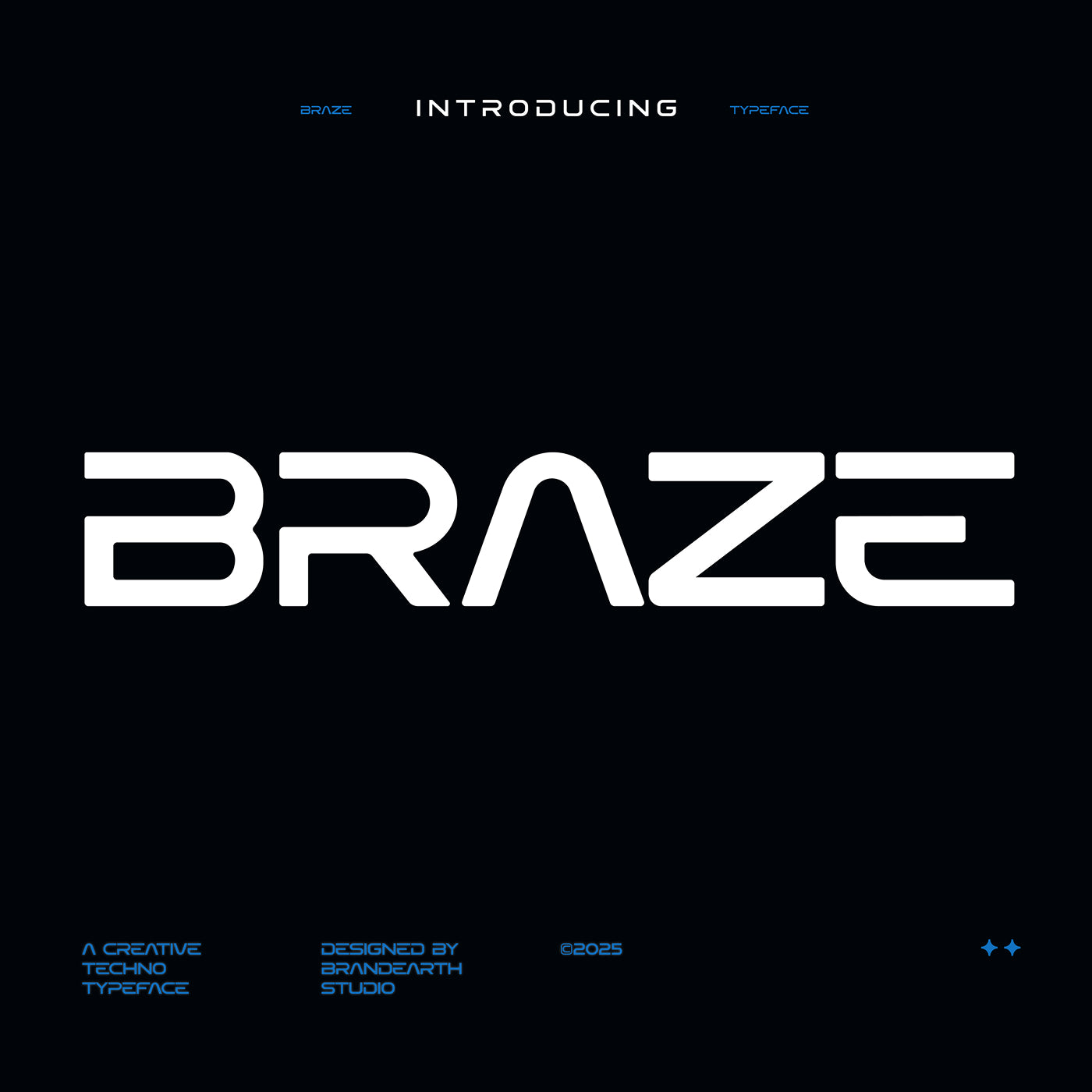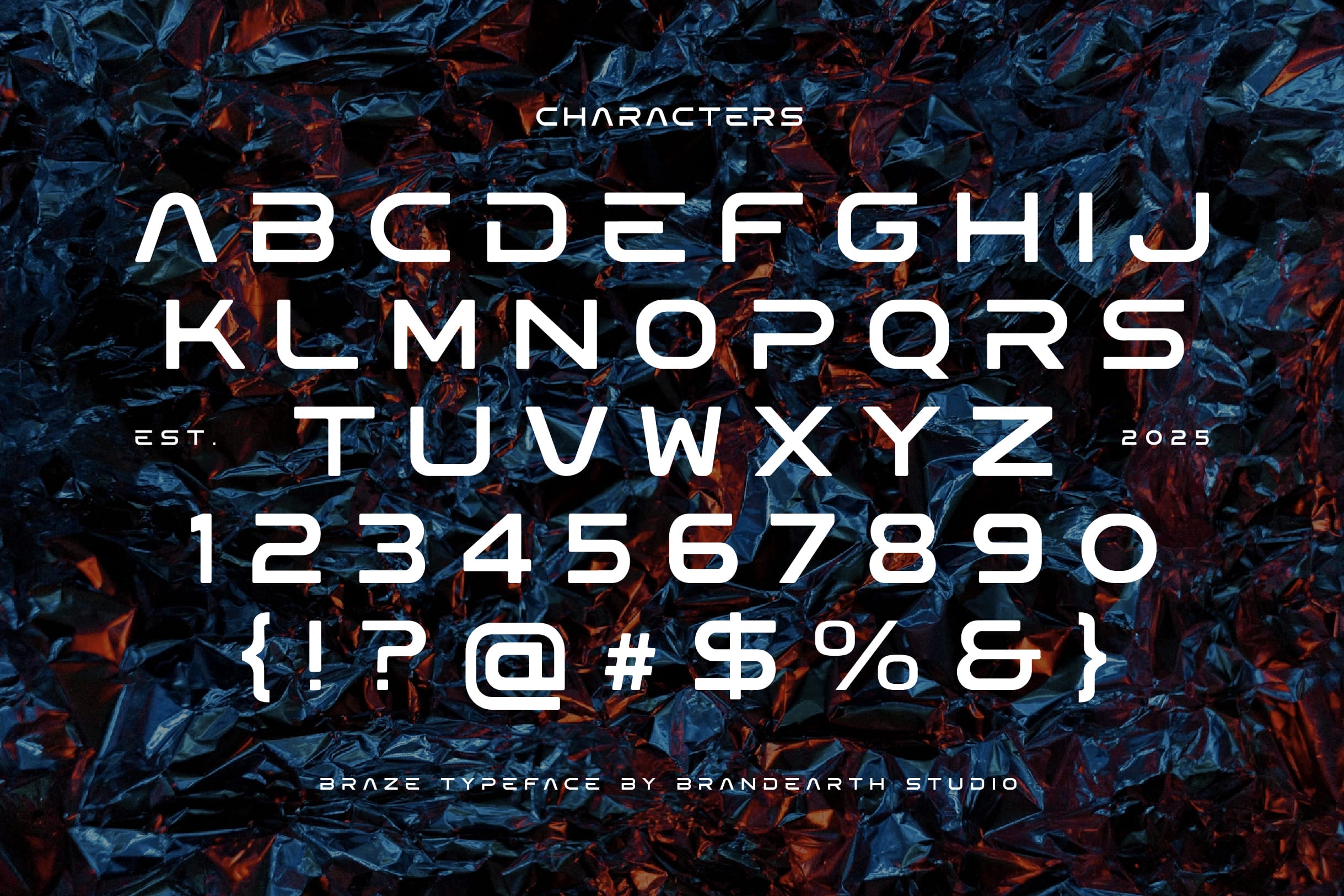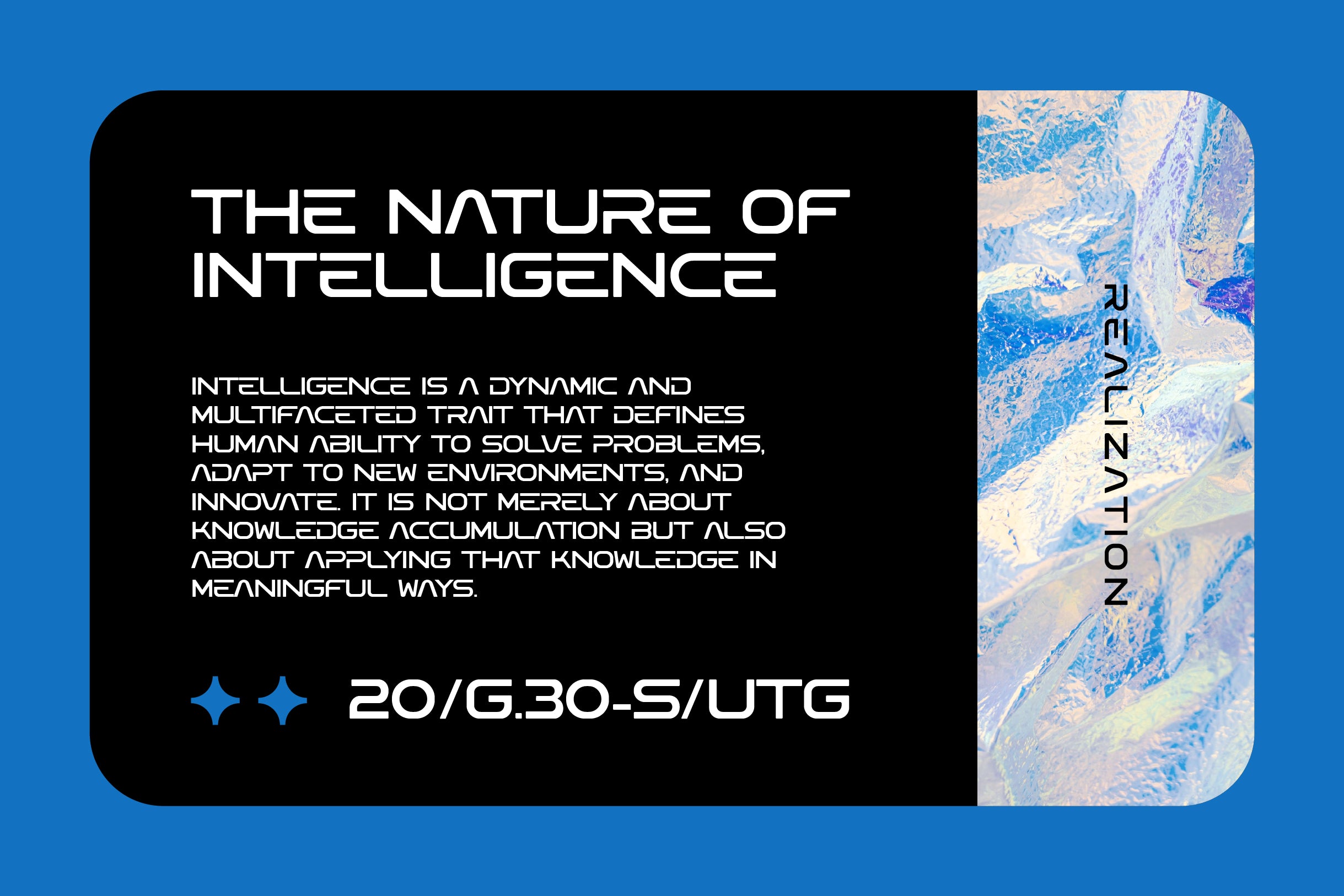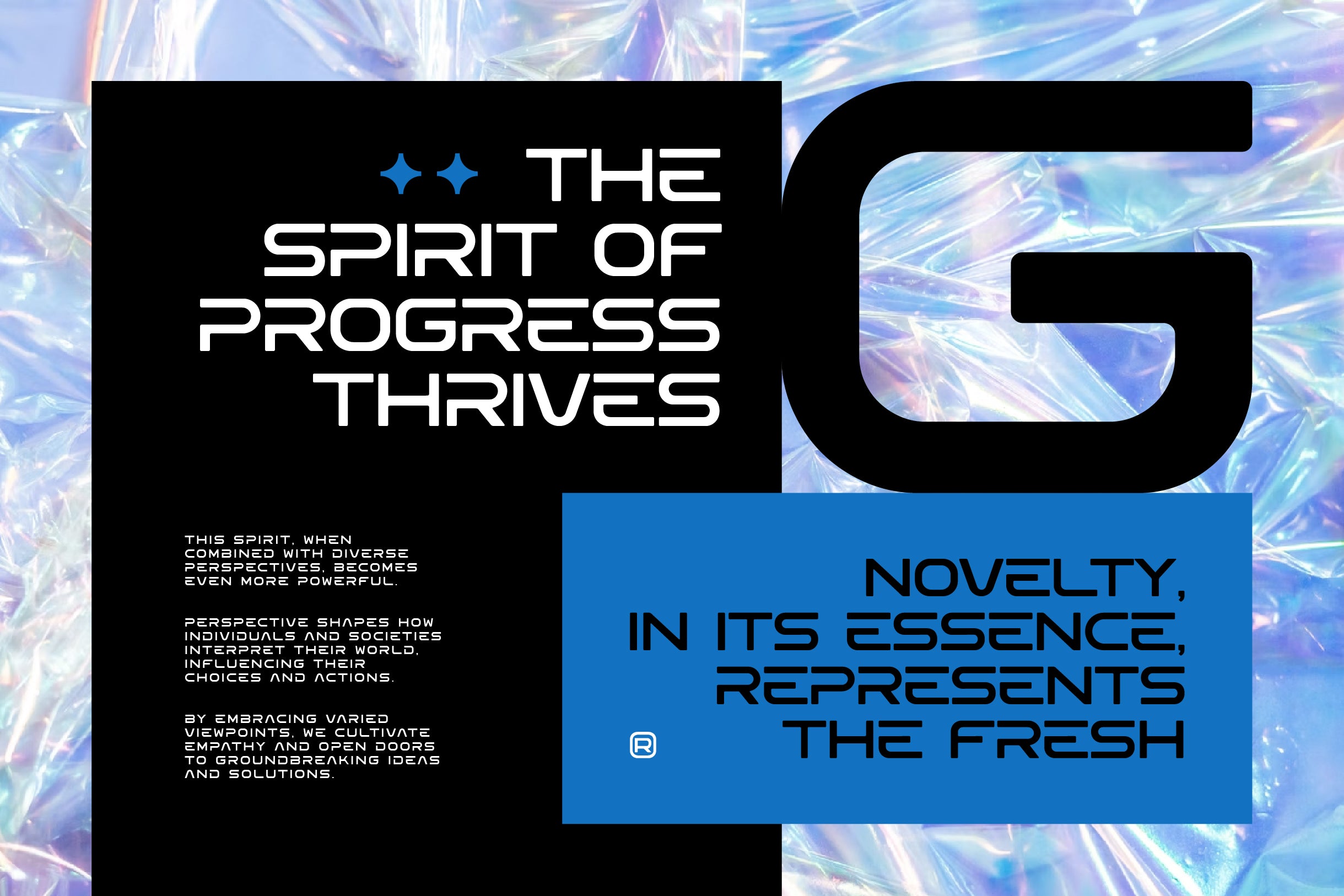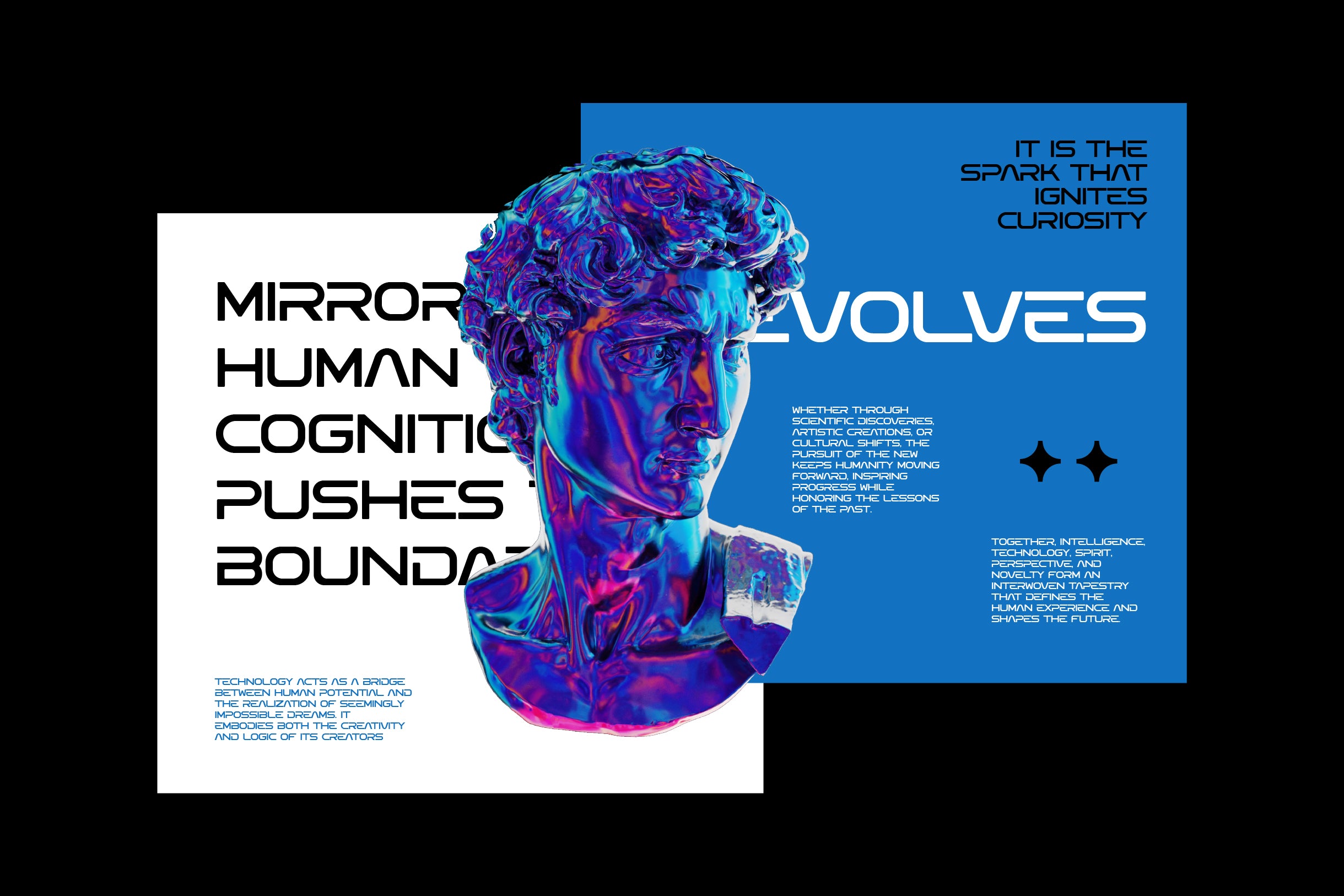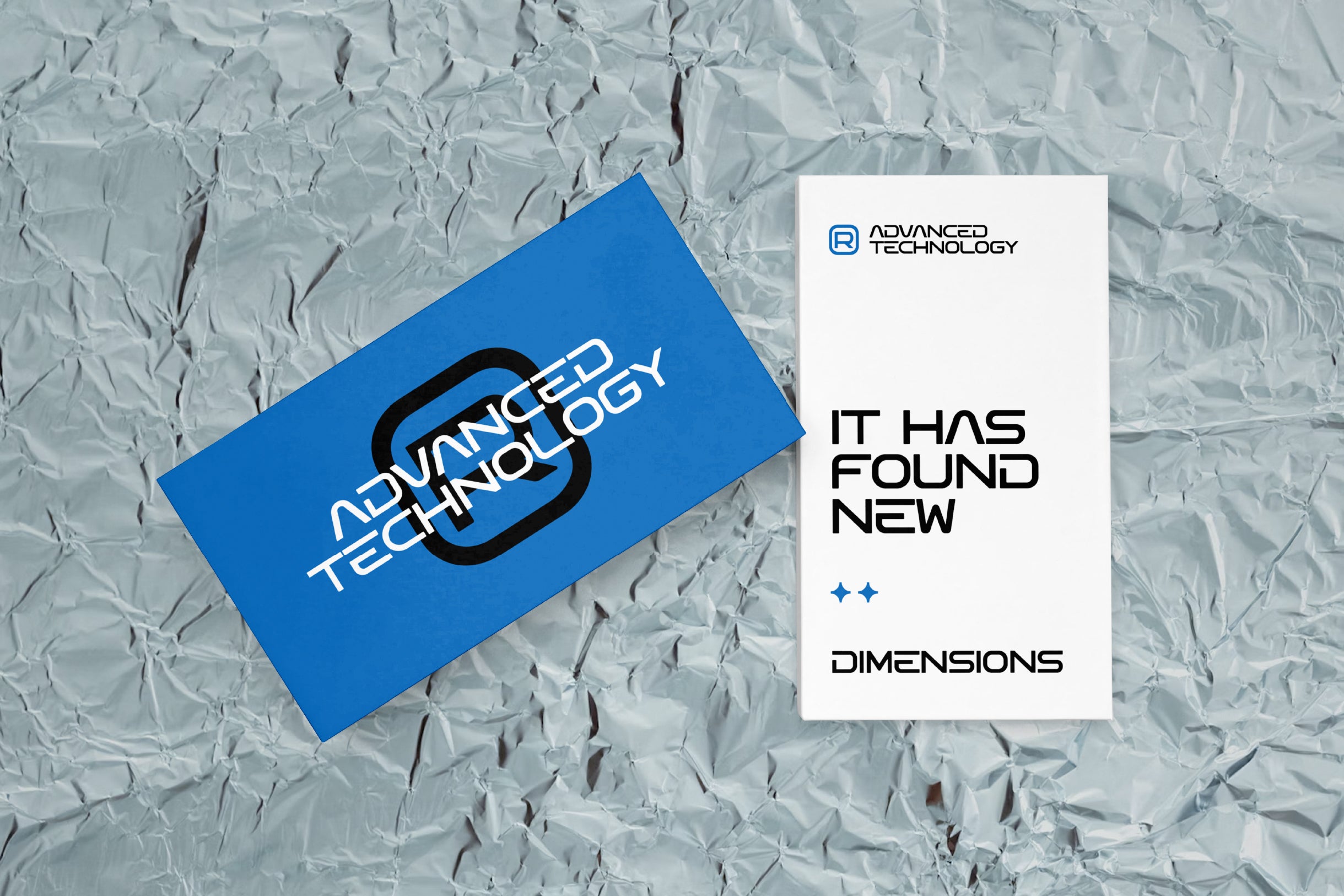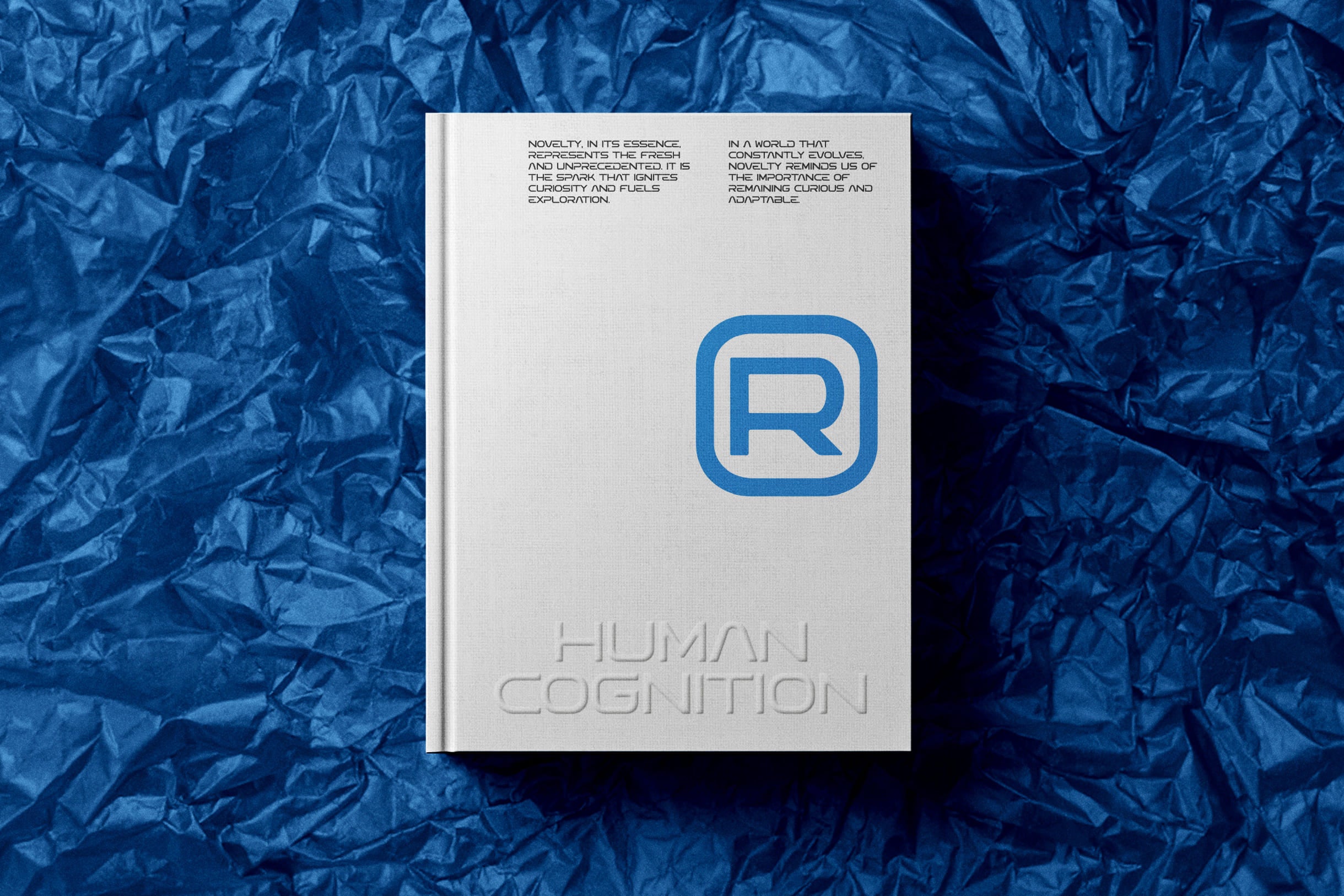
Braze Creative Techno Typeface Font
Braze is a futuristic techno display font that blends sleek, geometric lines with a modern digital aesthetic. Its bold, angular forms and rounded terminals give it a unique blend of sharpness and softness, ideal for designs that aim to push visual boundaries. Whether you’re building a sci-fi interface, an experimental brand, or a cyberpunk poster, Braze delivers a bold visual impact with a strong contemporary feel. Each character is crafted for high legibility while maintaining a strong personality, making it a great fit for tech-forward projects and artistic expression. Braze can be used in video game logos, futuristic landing pages, NFT promotional visuals, or modern display typography. Its modular design and consistent rhythm make it ideal for projects that require a high-tech, clean, and commanding tone.
Relevance and Use Cases Braze is perfect for technology fonts, modern futuristic interfaces, and cyberpunk visuals. It fits perfectly into sci-fi branding, digital event posters, techwear packaging, robotic or AI-based UI design, and music cover art. Its edgy yet professional look also suits corporate innovation brands, startup launch decks, and motion graphics
Braze is a techno display typeface featuring bold, angular forms with rounded terminals. It includes uppercase and lowercase letters, numerals, and punctuation in TTF and OTF formats.